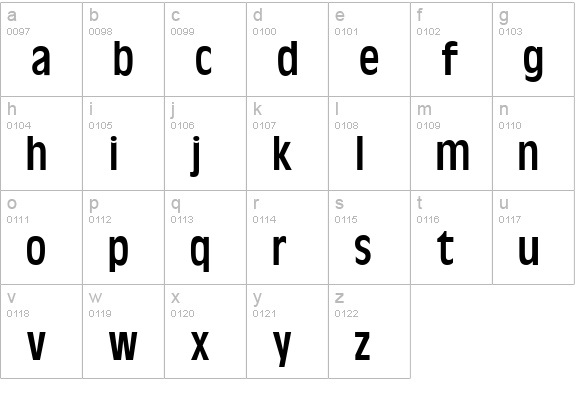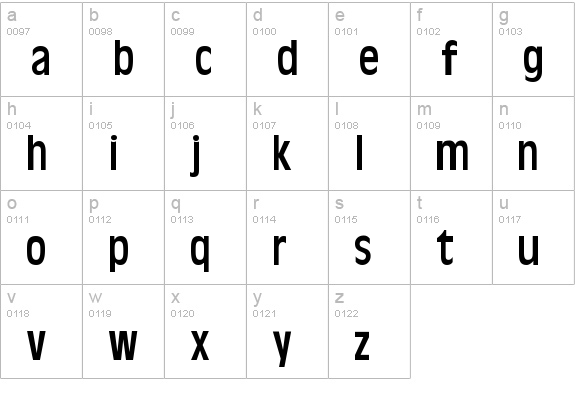
Olive Regular is the standard, neutral variant in the Olive typeface family \xE2\x80\x94 well suited to general body text, paragraphs, and standard typographic work.
Olive Regular font is a classic and versatile typeface that exudes elegance and sophistication. With its clean lines and timeless appeal, Olive Regular is the perfect choice for a wide range of design projects, from branding and packaging to editorial and web design. This font strikes the perfect balance between modernity and tradition, making it a go-to choice for designers looking to make a stylish statement. What's even better is that Olive Regular font is available for free download at FontsMarket.com. This means that you can easily access this high-quality typeface without having to worry about any costs. Whether you're a seasoned designer or just starting out, Olive Regular font offers a professional and polished look that will elevate your projects to the next level. Download it today and see for yourself the impact that this stunning font can have on your designs.